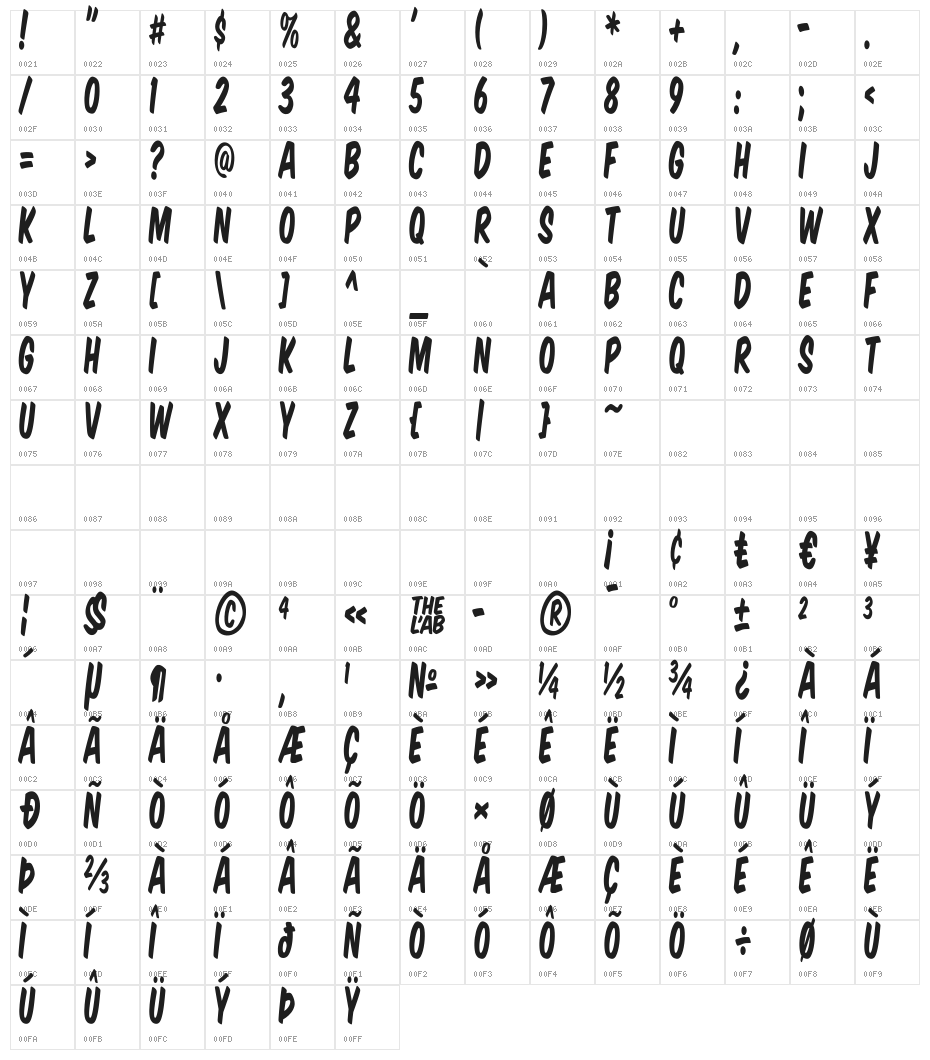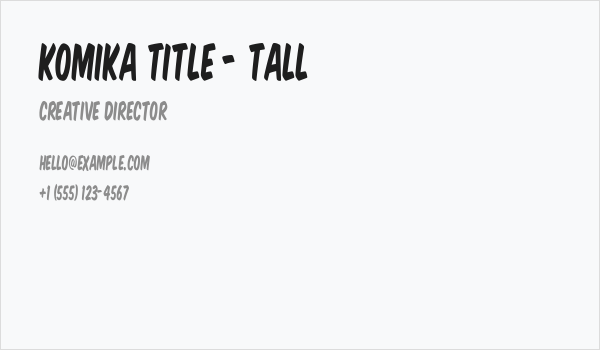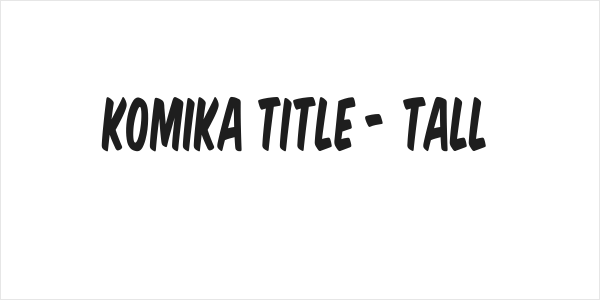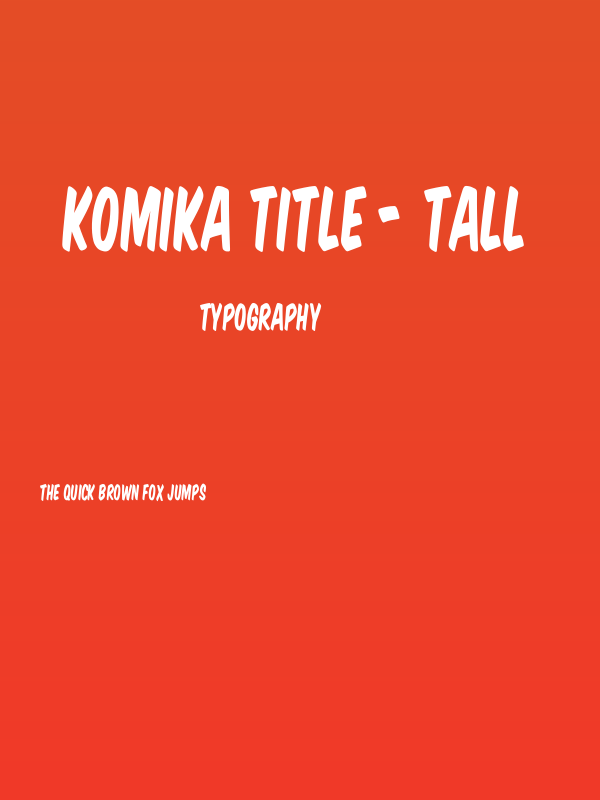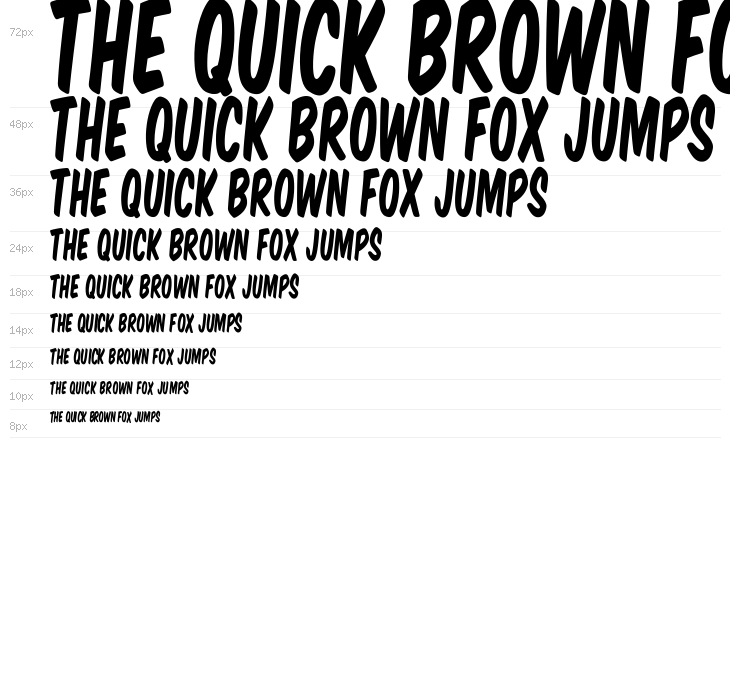
Komika Title - Tall Font
Komika Title - Tall Description
This font features a bold and playful style with tall, narrow characters that convey a sense of energy and movement. The letters are slightly slanted, adding a dynamic feel to the text. The strokes are thick and consistent, providing a strong visual impact. The overall design is reminiscent of comic book lettering, making it ideal for projects that require a fun and informal tone. The numbers and special characters maintain the same lively aesthetic, ensuring uniformity across different types of content.
| Overall Style | Playful, Energetic |
| Proposed Projects | Ideal for comic books, children's books, posters, and playful branding. |